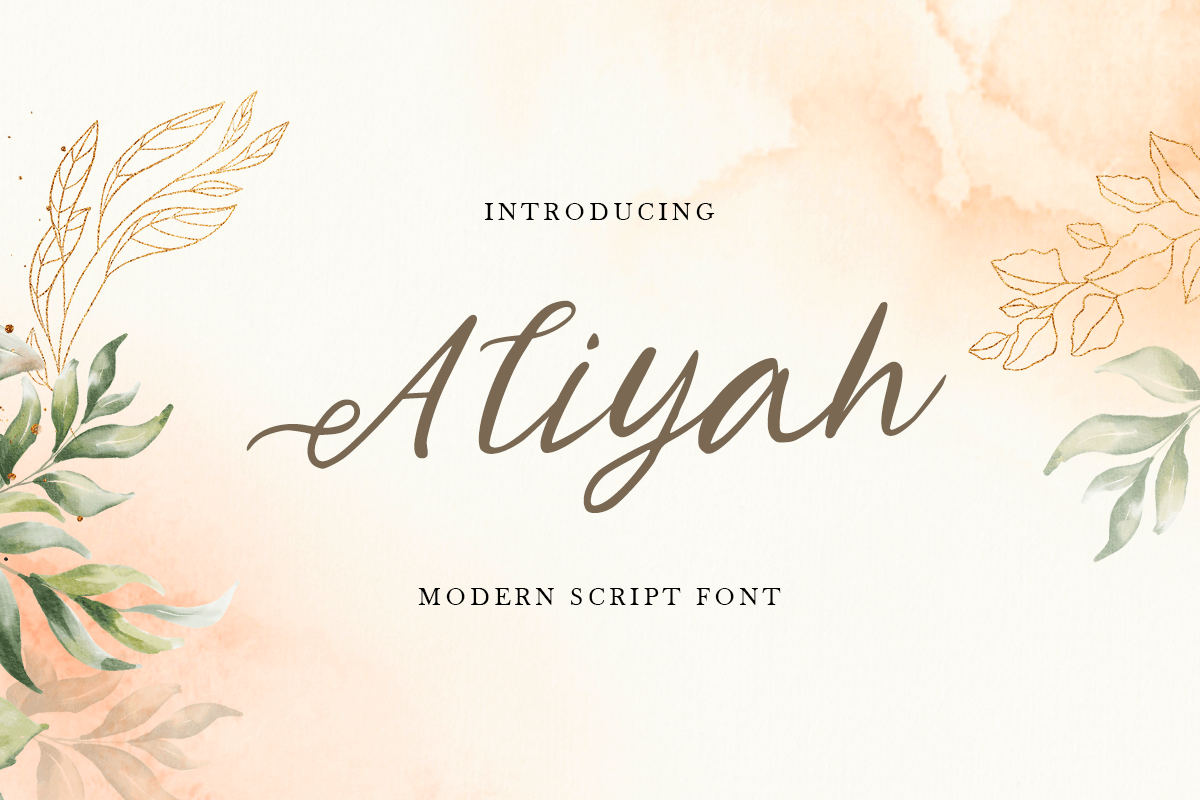
Aliyah
-Modern Script Font
Aliyah
Aliyah is a Modern Script Handwritten font with luxury, elegant, modern, beauty and classy-look. This font crafted specials for Elegant-themed projects, ready to use on branding, Social Media, Logo, and Many more that needs Elegant touches.